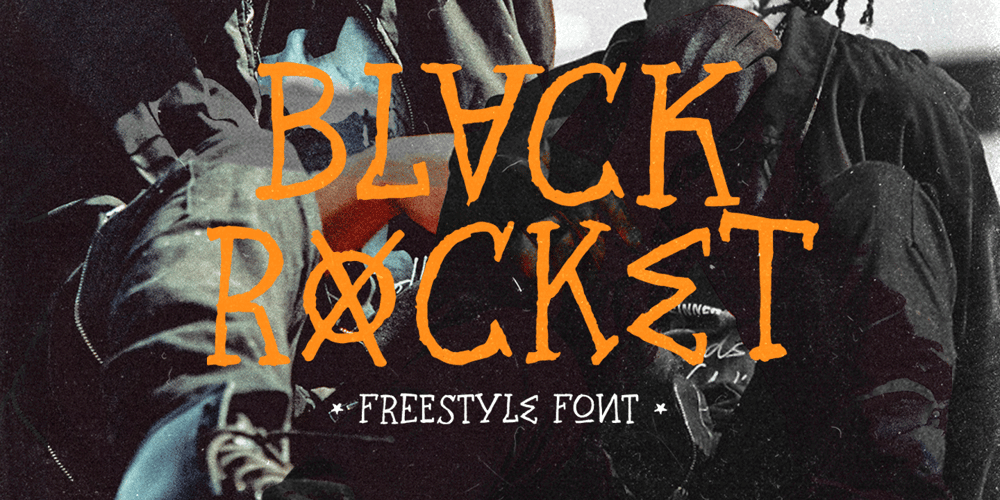
Black Rocket Font Family was designed by Hendry Juanda and published by Letterhend. Black Rocket contains 1 styles and family package options. Black Rocketis a standout handwritten font with a touch of grunge and free look and feel. If you want to pick bold and standout font for your design, this is the font that you’re looking for! This font is perfect for packaging, flyer design, event poster, event greeting,or any type of advertising purpose.Features : uppercase & lowercase numbers and punctuation multilingual PUA encoded We highly recommend using a program that supports OpenType features and Glyphs panels like many of Adobe apps and Corel Draw, so you can see and access all Glyph variations. How to access opentype feature : letterhend.com/tutorials/using-opentype-feature-in-any-software/